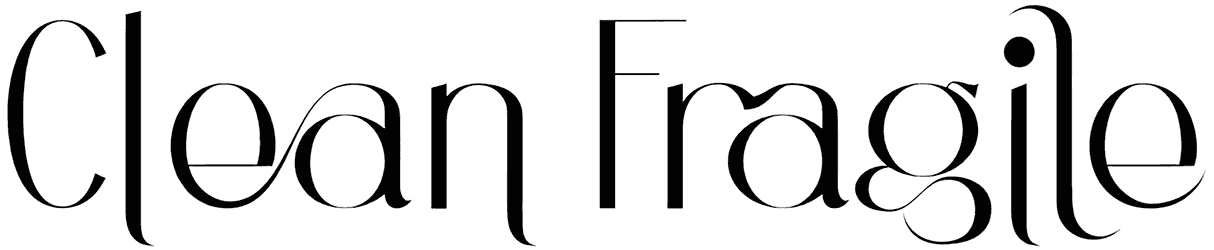
Clean Fragile Font
Step by step, shape your face of typography and give it modernity and a minimalist concept through this sans serif font. As its name implies, the neat lettering puts every effort to stay ahead of the pack despite lacking numbers.
Clean Fragile is a gorgeous sans serif font, designed with the modern vibe. This font is perfect for anything adventurous, and direct. Every stroke, and curve was created to entice happiness and elegance.